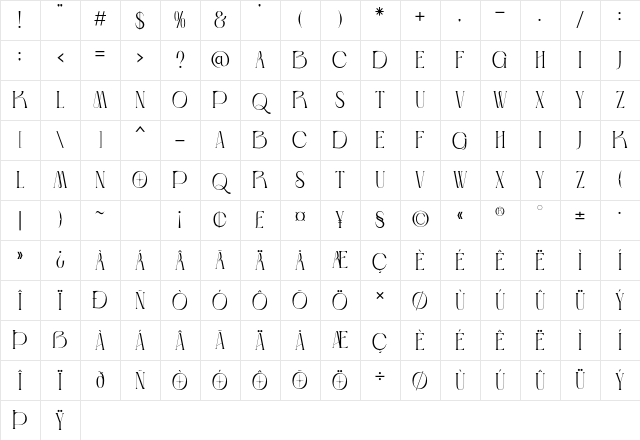
Metro Photograph - Demo Version Regular
Foundry: Nirmana Visual
Designer: Sigit Dwipa Raharjo
Design Context for Metro Photograph - Demo Version
Metro Photograph - Demo Version is a composed and adaptable typeface that performs quietly and consistently across a wide range of design contexts.